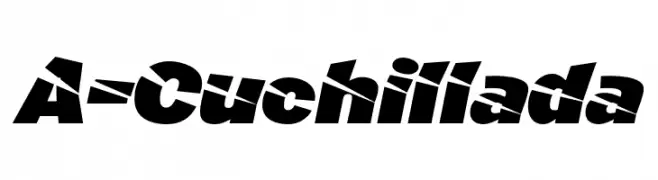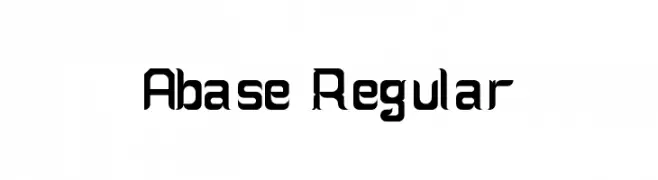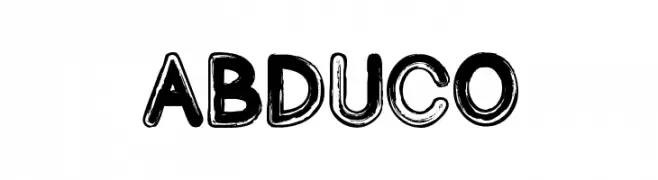
( LJ Design Studios - www.ljdesignstudios.com )
An artistic and decorative font with intricate flourishes and embellishments.
( www.sparkybuddy.com - David Pustansky - www.sparkybuddy.com/fonts )
A display font made from iconic art-themed illustrations forming each letter.
A bold, angular font with dynamic cuts for striking designs.
A modern, monospaced font with tall, narrow characters and consistent stroke width.
( Sofyan Rizki Afandy )
A modern, angular font with a futuristic and bold design.
( BessAsher Rebel )
A playful, hand-drawn font with rounded, irregular letterforms.
( Fonts by Chris Vile )
A bold, playful font with a hand-drawn, graffiti-inspired style.
A bold, playful font with a hand-drawn, distressed look.